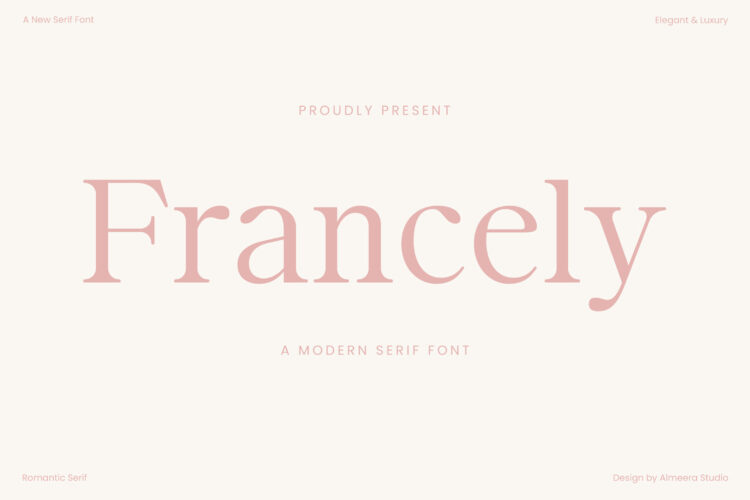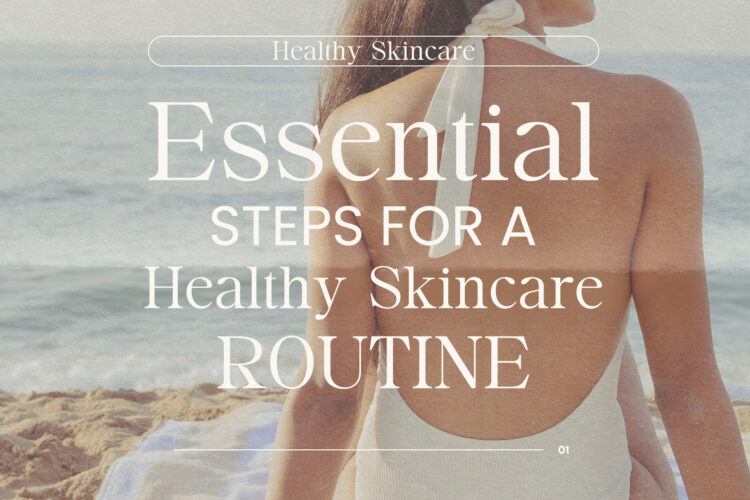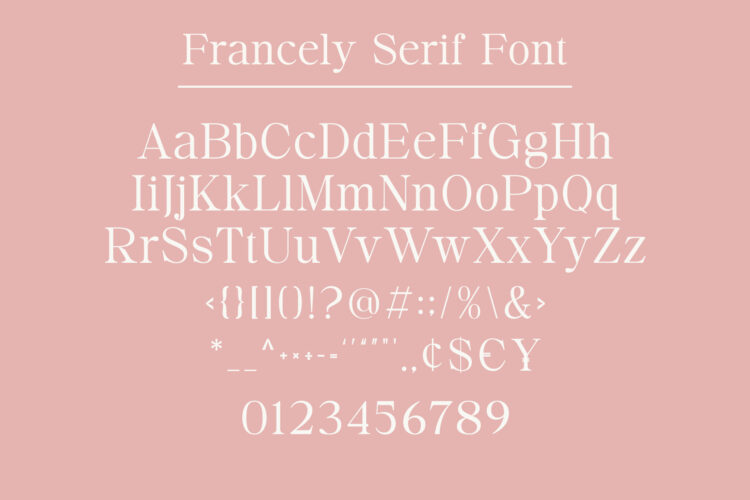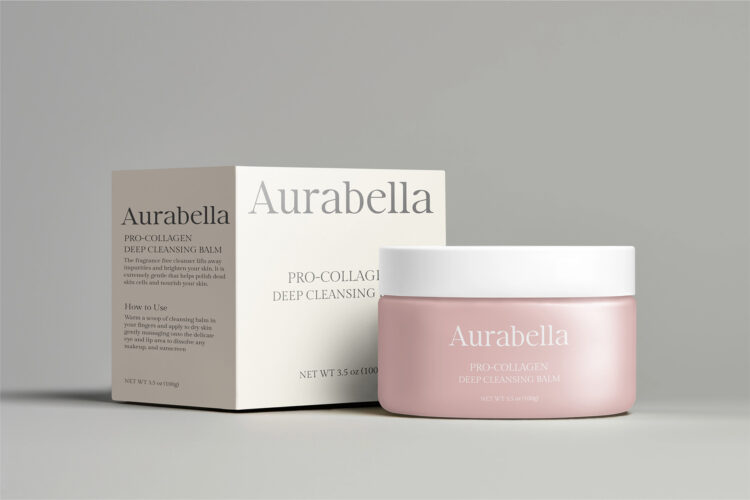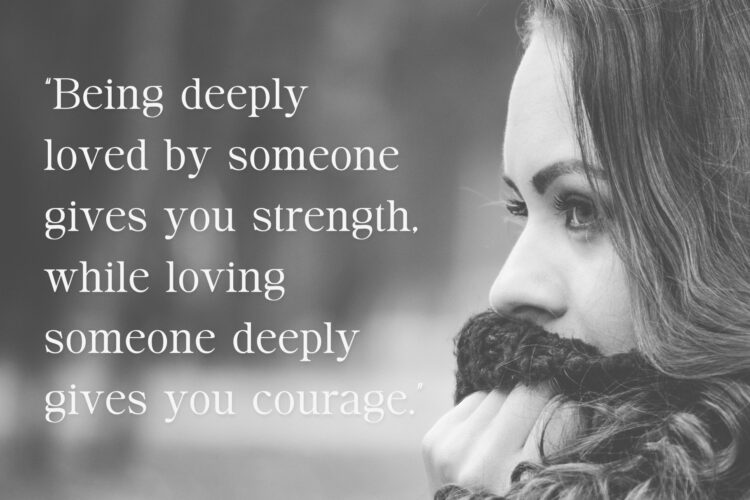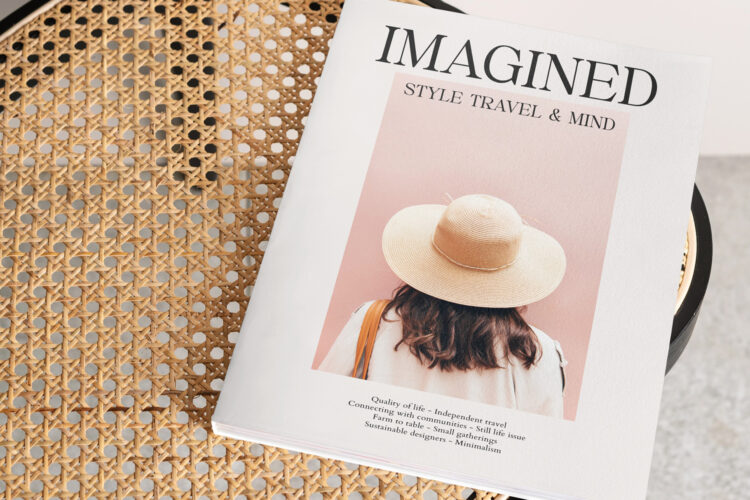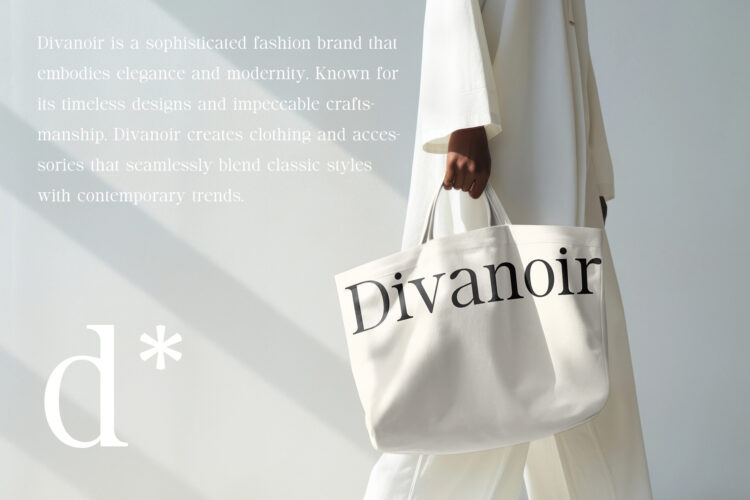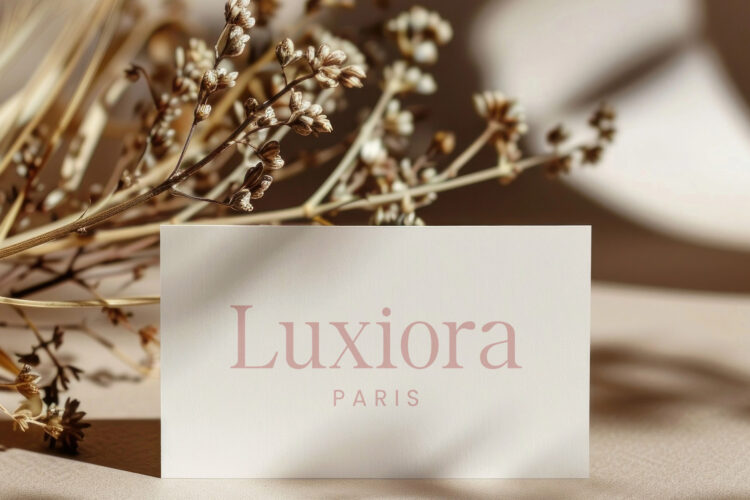
Introducing Francely – Serif font. Francely is a simple, stylish & elegant serif font, This type of font is very suitable for your various needs such as branding projects, logos, social media posts, advertisements, labels, product packaging, photography, wedding designs, watermarks, invitation product designs, stationery, and any project.
Francely – Serif font